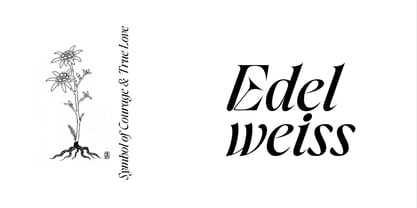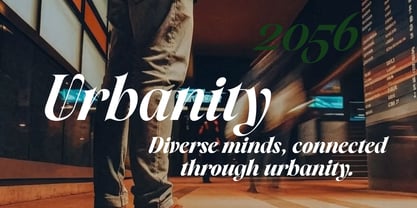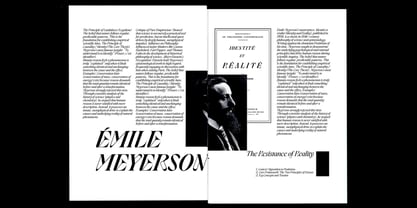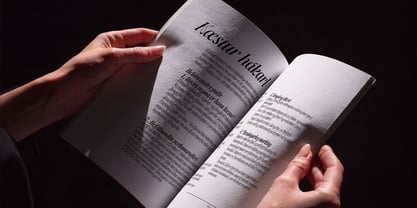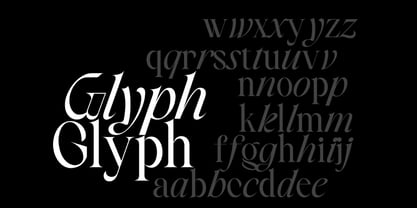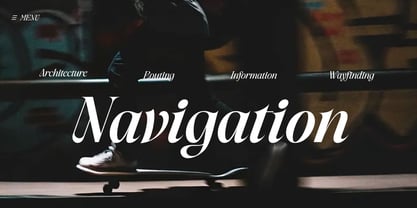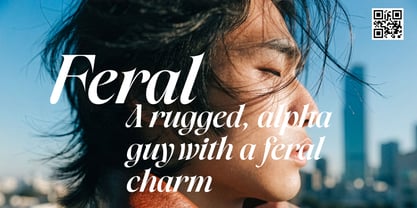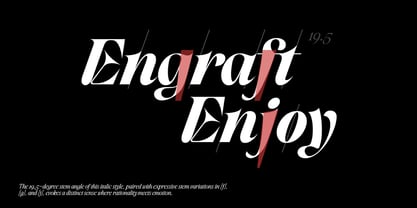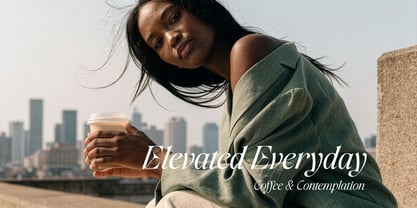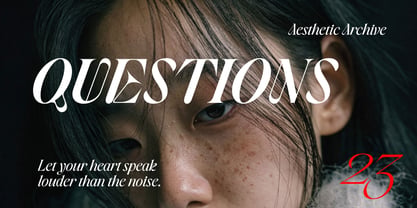
Amode Ethan
by Brenners Template
The Amode Ethan Font Family was designed by Ryul Davidson and published by Brenners Template. Amode Ethan contains 18 styles and family package options. More about this family
This typeface combines the sharp precision of high-contrast classical serifs with a dual structural personality: cold, geometric mechanics balanced by fluid, organic curves.
With an intentional 19.5-degree italic slant, it embraces movement, tension, and deliberate rebellion. Ultra-sharp terminals and paper-cut edges create a high-fashion, futuristic, and subtly intimidating aesthetic, while hard-angled stems and structural breaks evoke precision-engineered metal and architectural forms.
The stems flex and flare like aerodynamic profiles, while distorted, parabolic counters create a sense of compressed energy within each character. The result is an aggressive yet refined typeface designed for luxury tech, editorial titles, and high-impact identity design.
This is a study in the contrast between human anatomy and mechanical precision, bringing together muscle, bone, and engineered structure in a distinctive humanoid aesthetic.